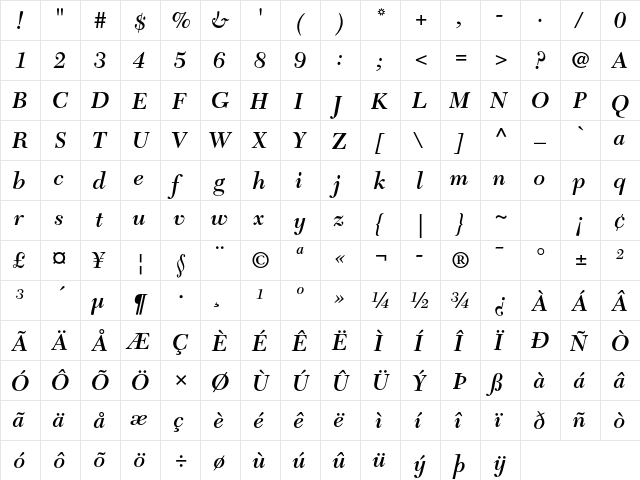
New Caledonia LT Std Semibold Italic
Semibold Italic ·  William A. Dwiggins ·
DesignerWilliam A. Dwiggins
Design Context for New Caledonia LT Std Typeface
New Caledonia LT Std takes a measured approach to typography — its balanced proportions and neutral character make it a reliable workhorse for both digital and print work. Its italic angle brings a sense of urgency and motion to the letterforms. The heavy weight commands attention and anchors typographic hierarchies.
Pro Tip: Use New Caledonia LT Std for emphasis, pull quotes, and subheadings where its slanted energy can add rhythm to the layout.